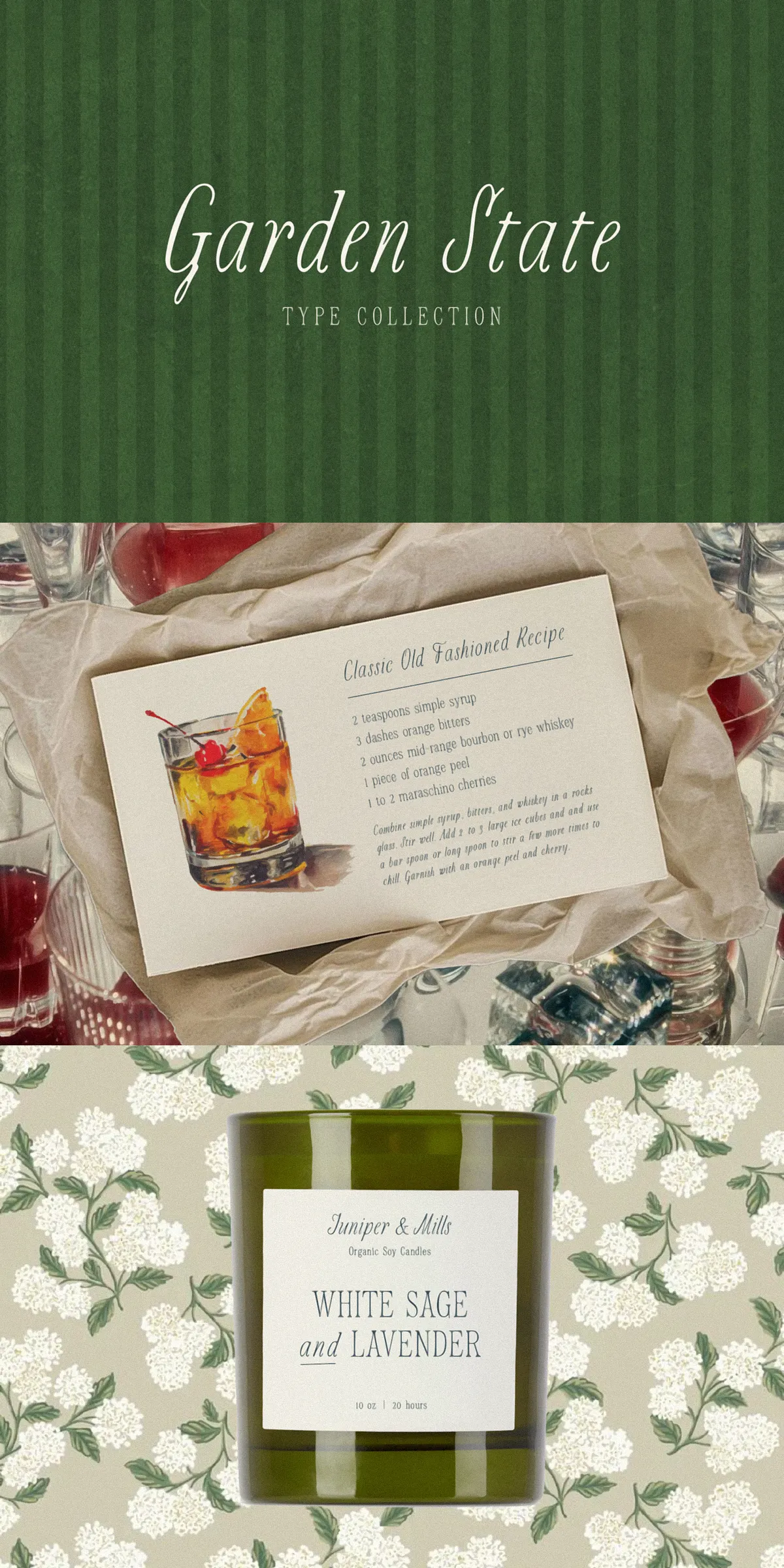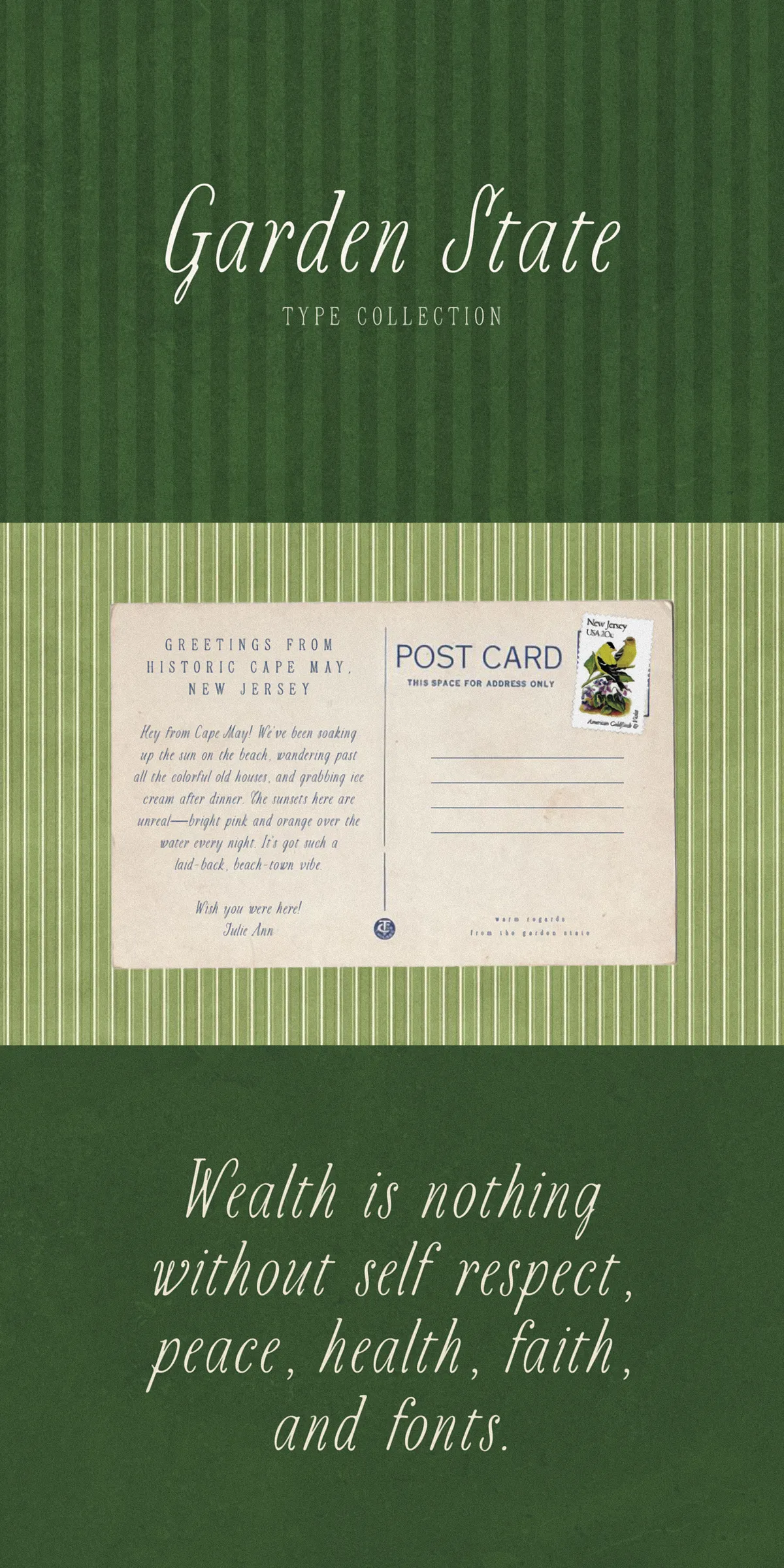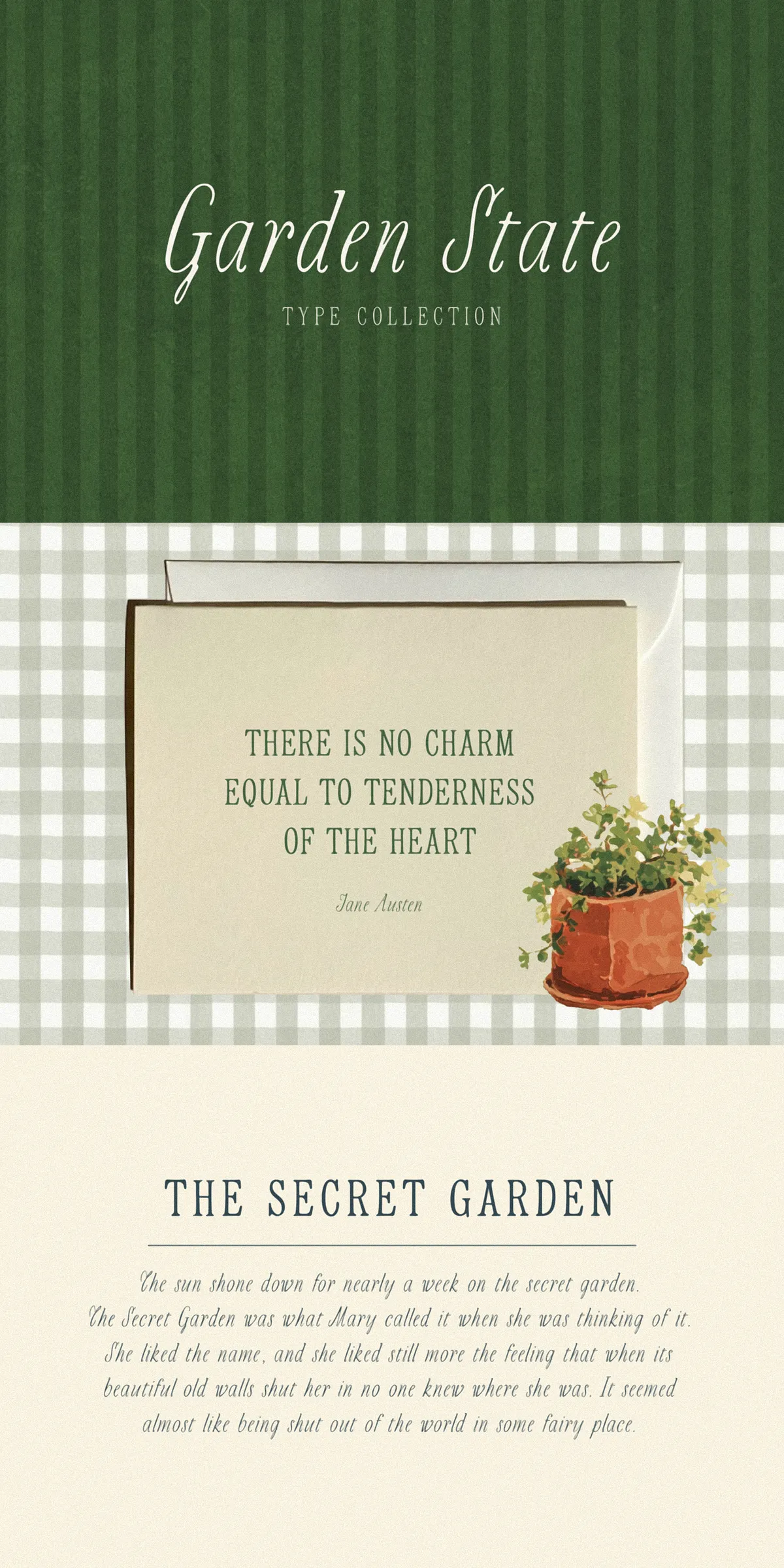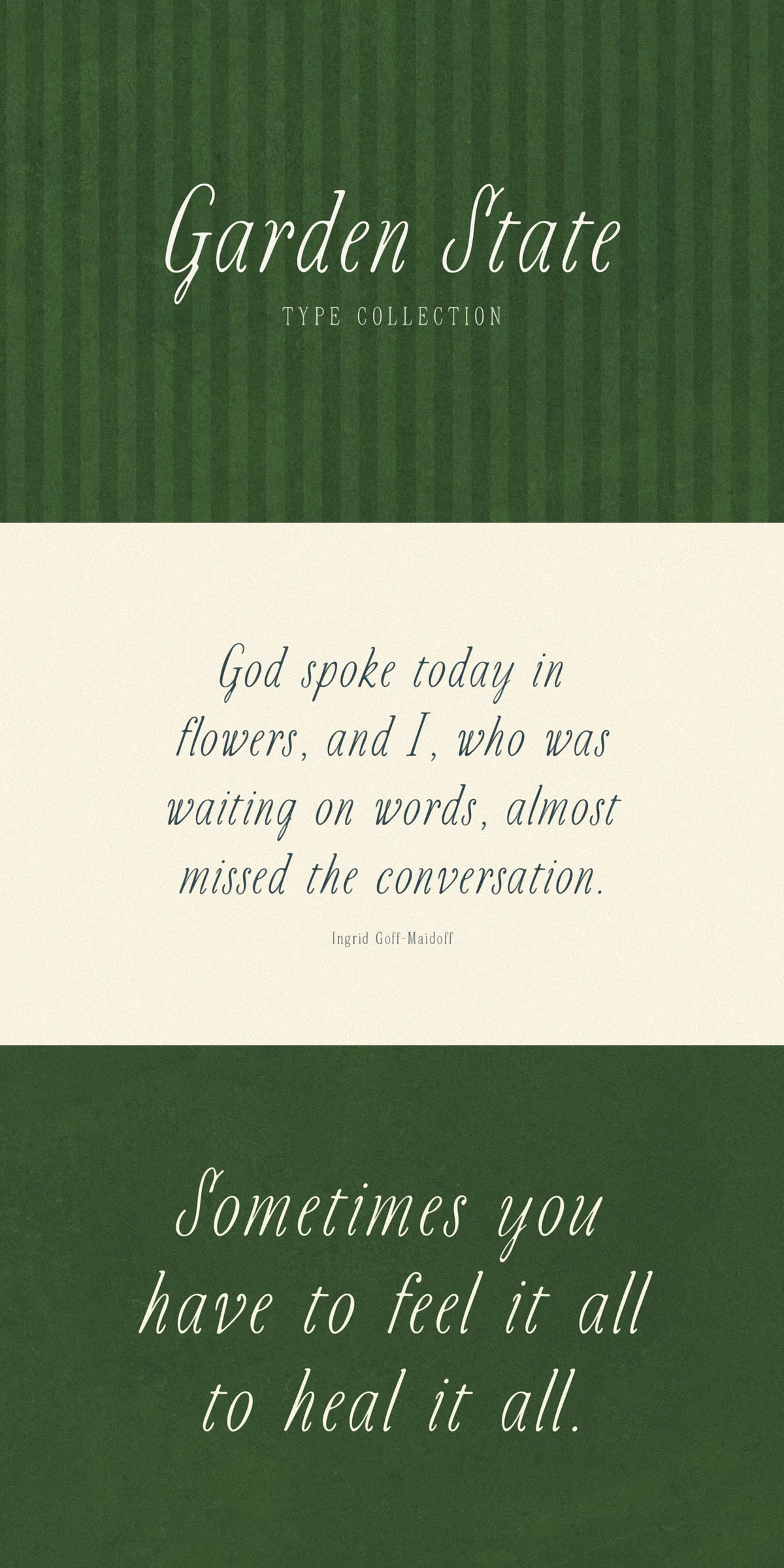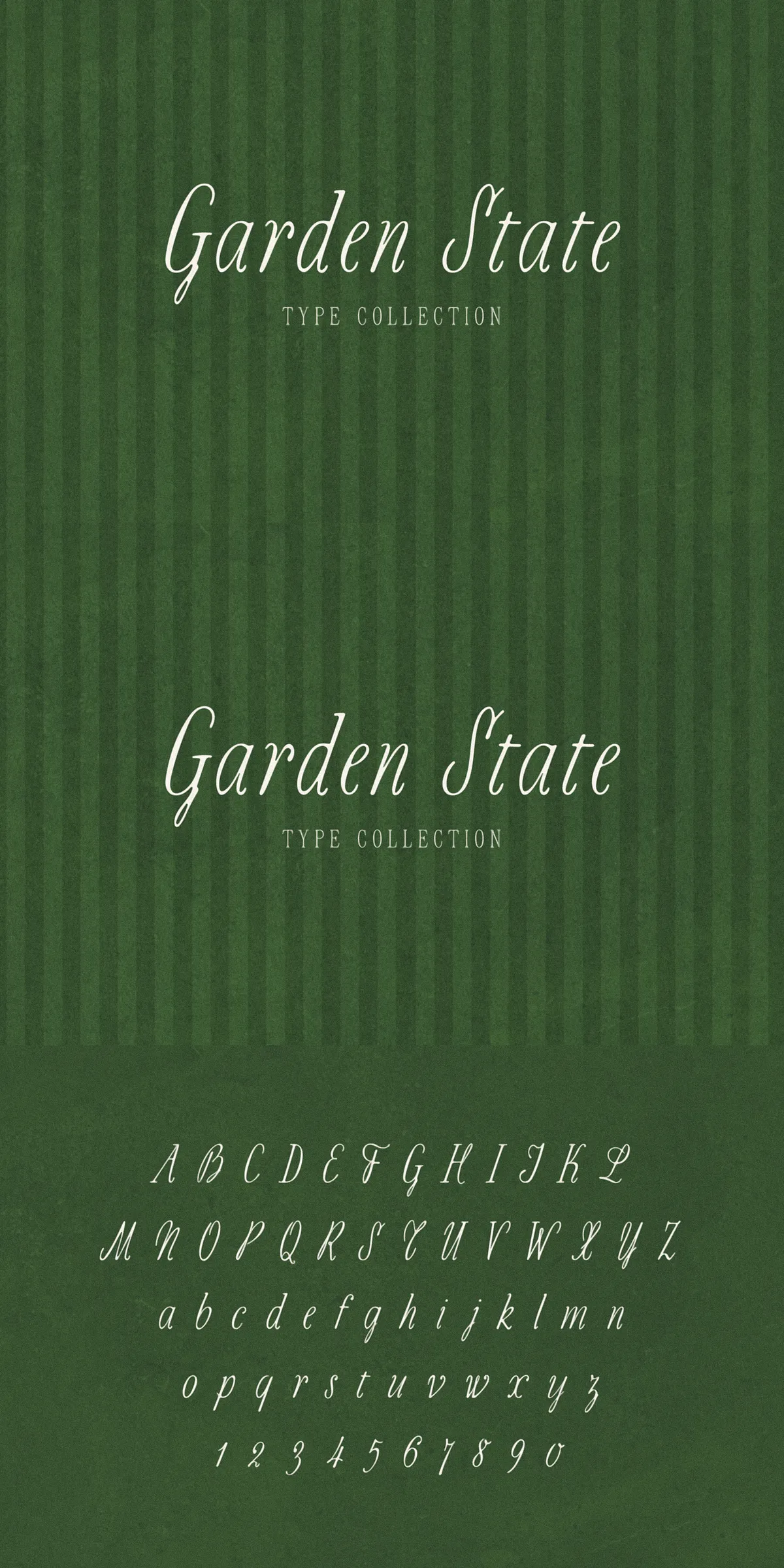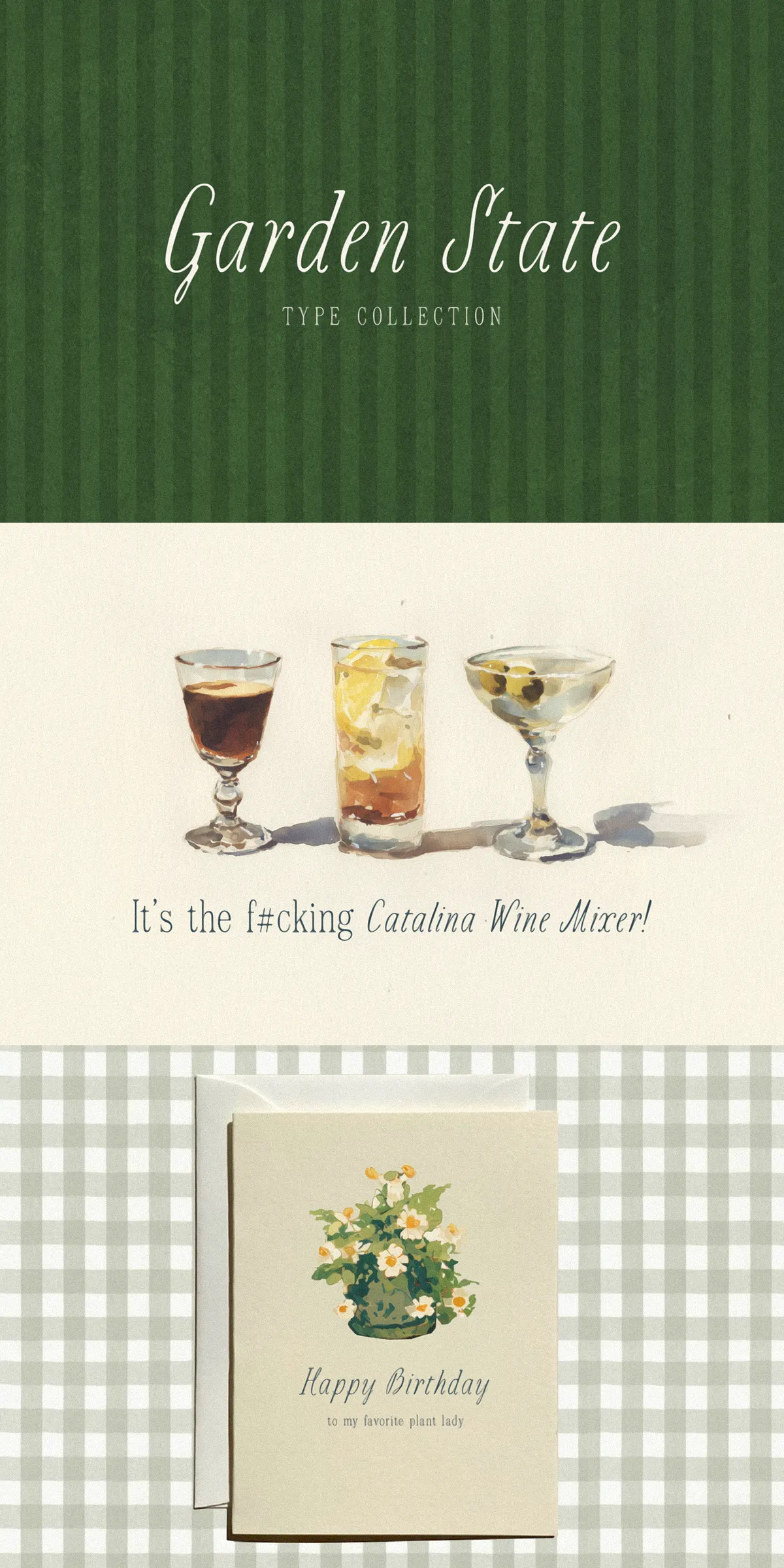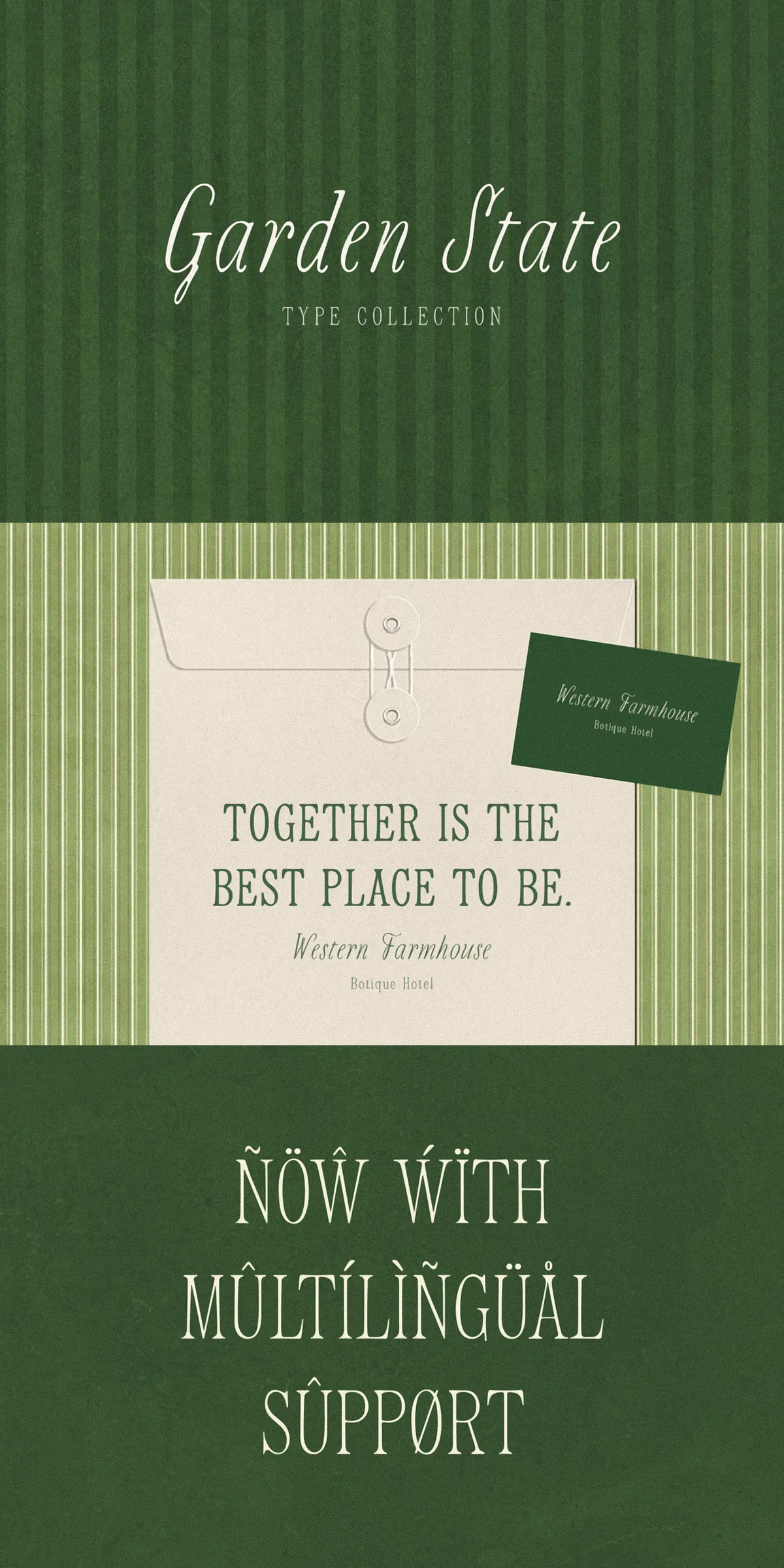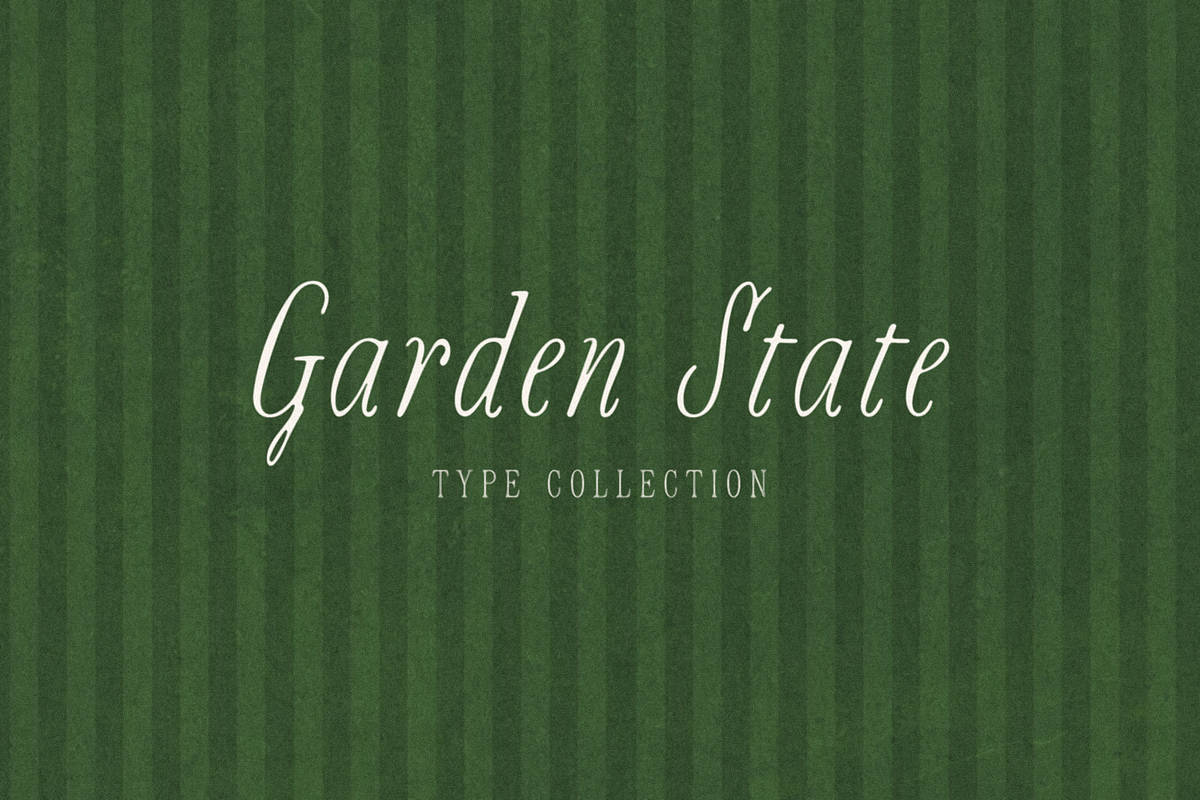
Garden State presents a carefully crafted vintage type collection that channels the refined spirit of early 1900s garden parties. Designers looking to inject authentic period charm into modern work will find Garden State powerful and versatile. The typeface actively shapes tone and character: it commands attention on album covers, invites nostalgia on apparel and packaging, and adds tasteful personality to menus, signage, and editorial layouts. Use Garden State to highlight heritage, evoke sophistication, and deliver a distinct handcrafted look across print and digital touchpoints.
Handmade Character And Authentic Period Detail For Designers
Every glyph in Garden State reflects a handmade sensibility. Strokes and terminals carry subtle irregularities that suggest analog craft rather than sterile digital uniformity. Those details translate into rich, tactile headlines and logos that feel lived-in and genuine. When you need typography that reads as both elegant and organic, Garden State supplies a focused, character-driven voice that supports branding, invitations, posters, and merchandise with equal confidence.
Where Garden State Works Best — Practical Applications
Garden State performs exceptionally across a broad range of creative applications. Use it for striking advertising headlines, evocative album art, and apparel graphics that reference vintage culture. Its handmade warmth enhances wedding stationery and invitations, elevates menus and signage for hospitality brands, and strengthens identity systems for boutique product packaging and merchandise. The typeface also excels on printed collateral like cards and flyers and adapts well to high-quality web presentation when exported as graphics or used in supported webfont implementations.
Examples Of Effective Use
- Create a headline-driven poster that highlights Garden State’s ornamental forms to establish a nostalgic mood.
- Design premium product labels and packaging where the handmade letterforms communicate artisanal quality.
- Compose elegant invitations and menus that pair Garden State with a neutral sans for readable body text.
Multilingual Support And Market Reach
Garden State includes language support for key European markets, enabling confident use across international projects. Supported languages include Danish, English, French, German, Irish, Italian, Portuguese, Spanish, Swedish, and Swiss German. This coverage ensures your communications remain accurate and visually consistent when you deploy the font for multilingual branding and printed materials.
Final Design Guidance And Pairing Tips
To highlight Garden State’s character, set display headlines at generous sizes and allow ample leading so ornamental details breathe. Pair the typeface with a clean, modern sans-serif for body text to balance historic charm with contemporary readability. For packaging and branding, consider restrained color palettes and textured materials to amplify the handmade quality inherent in Garden State’s letterforms.